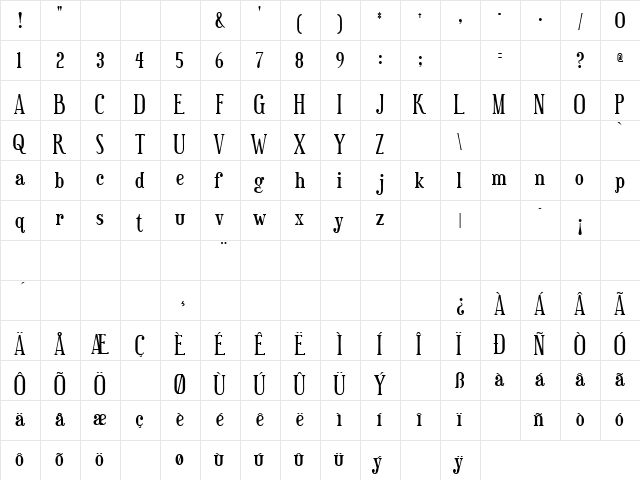
Euphorigenic Regular
Design Context for Euphorigenic Typeface
Euphorigenic takes a measured approach to typography — its balanced proportions and neutral character make it a reliable workhorse for both digital and print work.